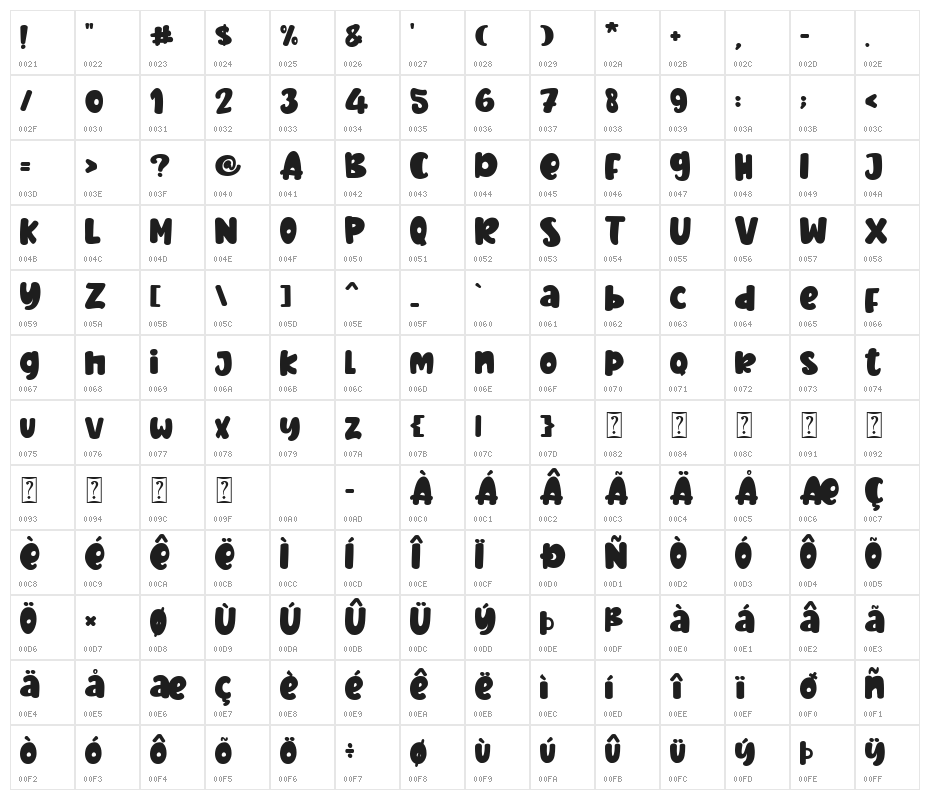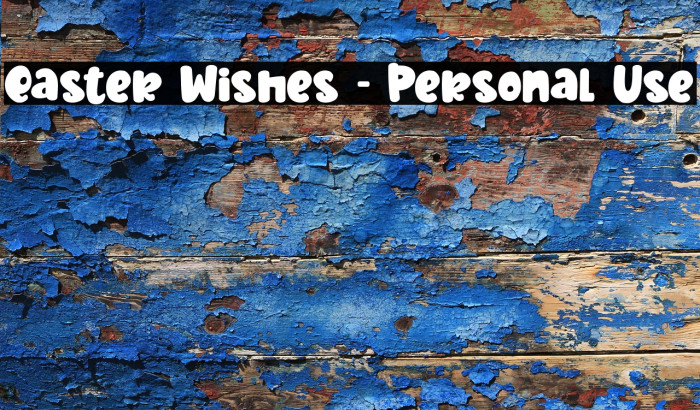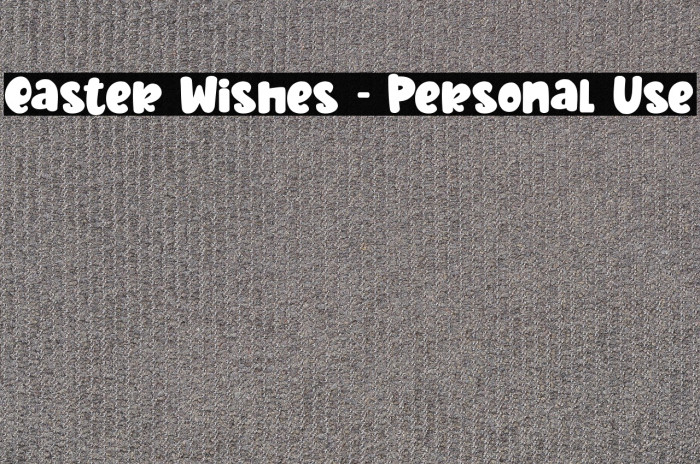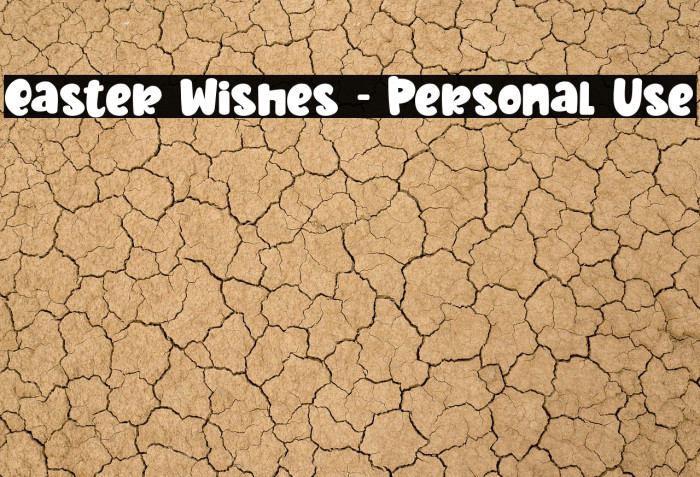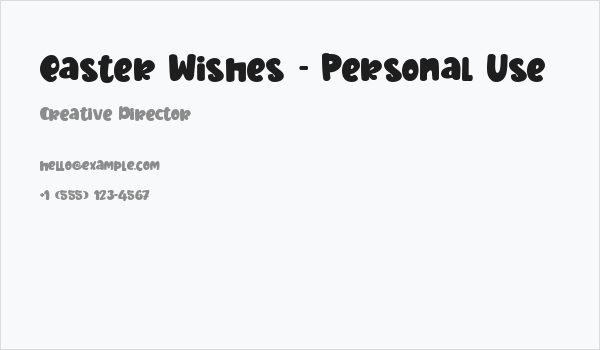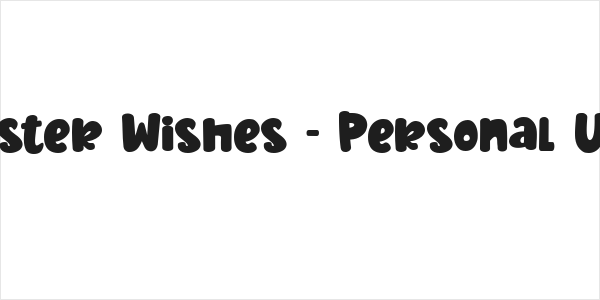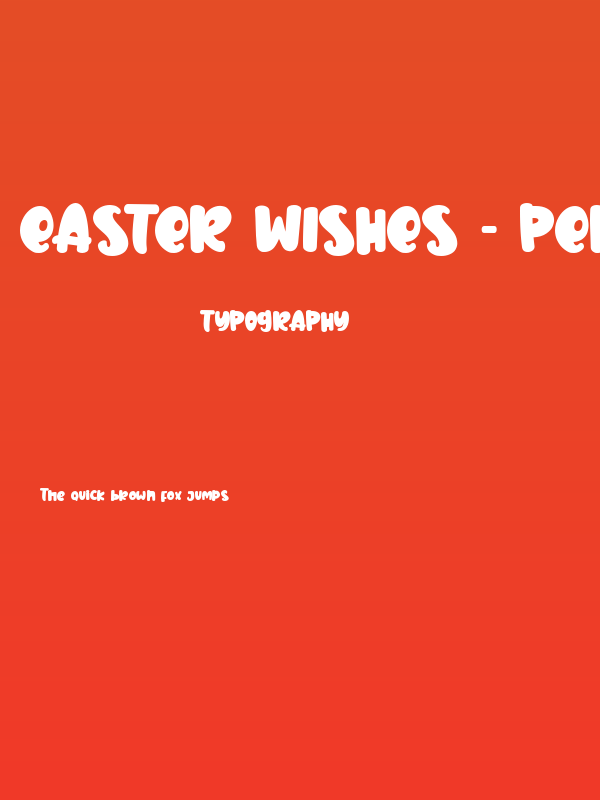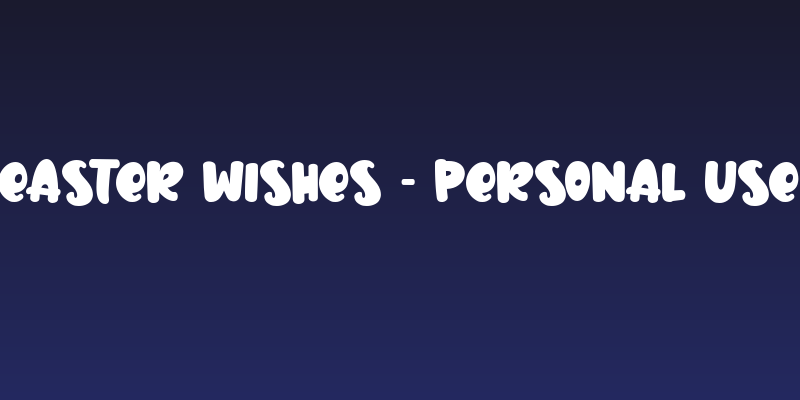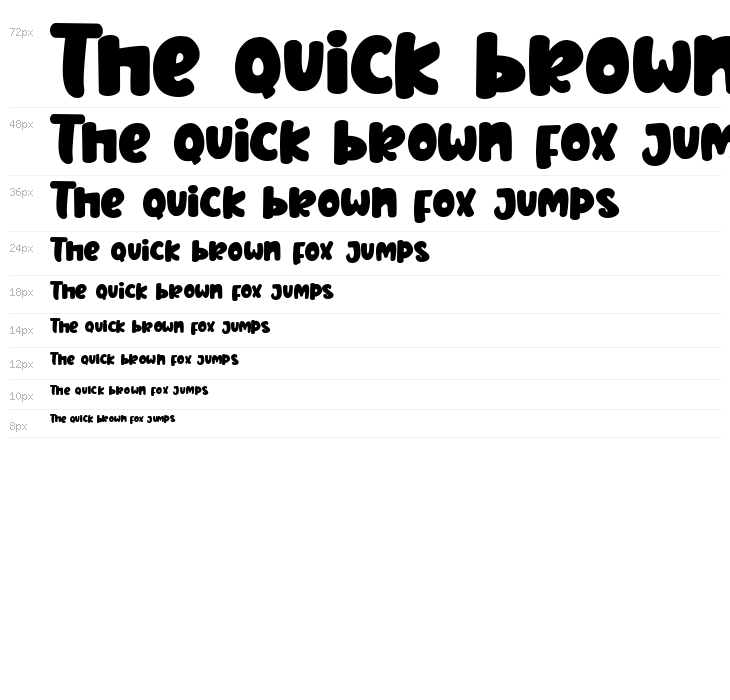
Easter Wishes - Personal Use Font
Easter Wishes - Personal Use Description
This playful and bold font features thick, rounded letters that convey a sense of fun and whimsy. The characters are uniformly bold with a consistent stroke width, giving them a chunky appearance. The uppercase and lowercase letters maintain a cohesive style, with slightly exaggerated curves and rounded edges that enhance their friendly and approachable look. Numbers and special characters follow the same design principles, ensuring a harmonious overall appearance. The font's style is reminiscent of hand-drawn lettering, making it ideal for projects that require a personal and informal touch.
| Proposed Projects | Ideal for children's books, playful branding, greeting cards, and party invitations. |